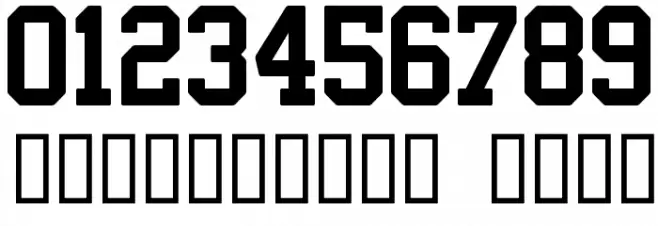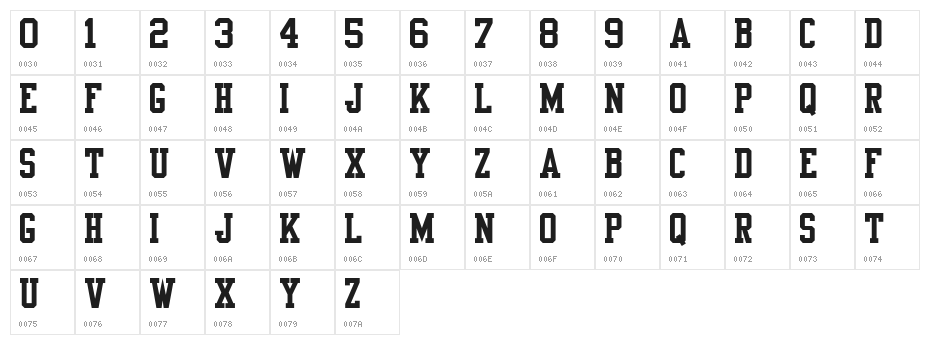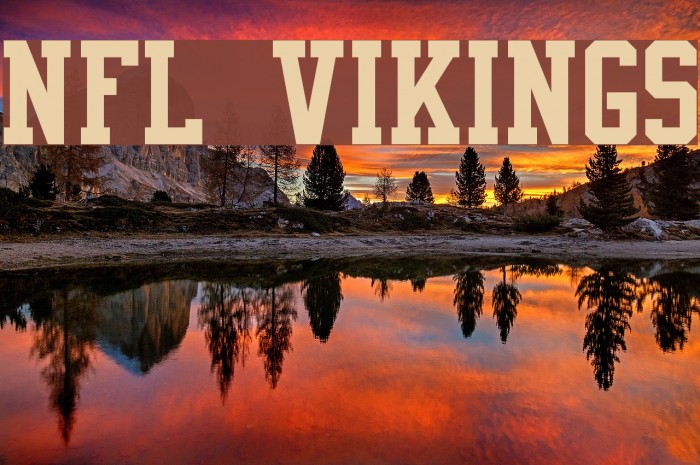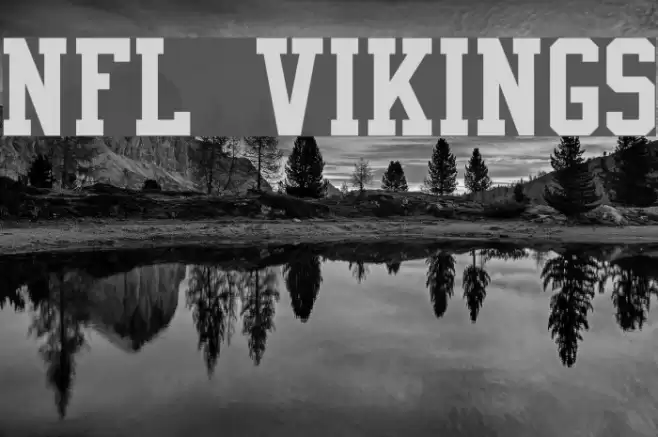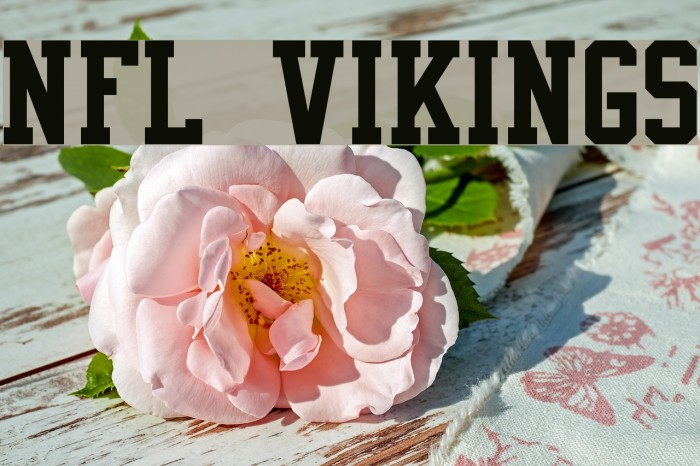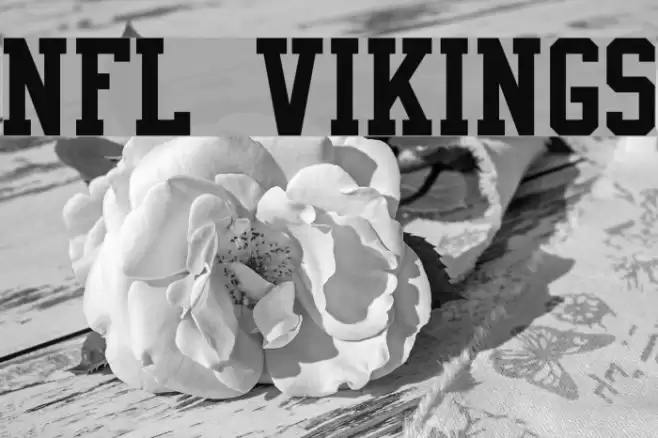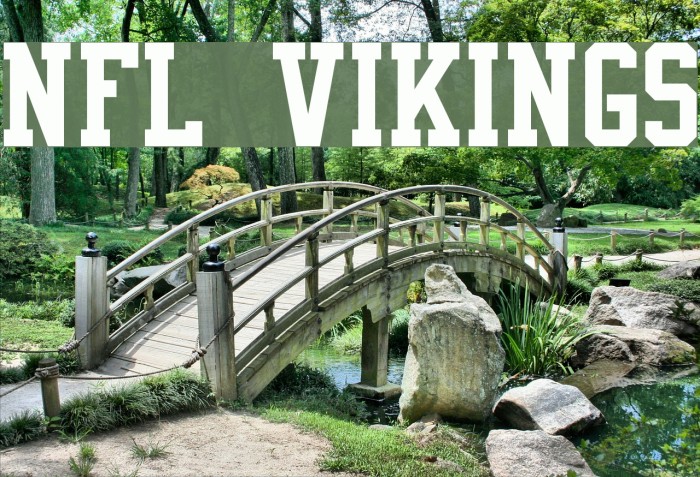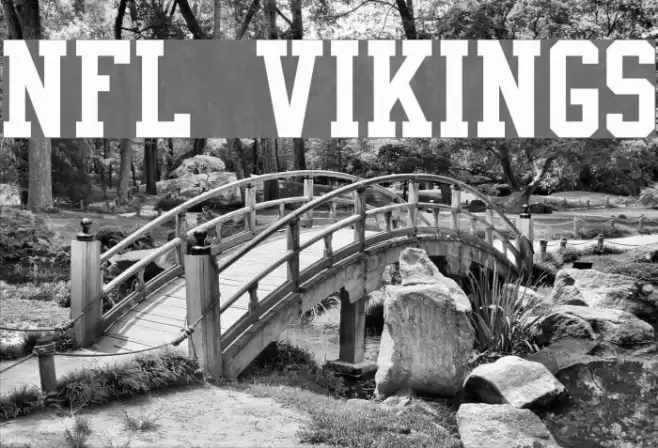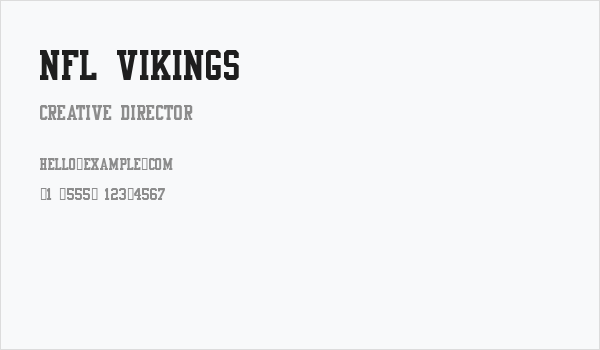
NFL Vikings Font
NFL Vikings Description
This font features bold, blocky characters with a strong presence, ideal for making a statement. The uppercase letters are designed with a uniform width, giving them a balanced and structured appearance. The numbers follow the same bold style, ensuring consistency across different uses. The font's geometric shapes and sharp edges convey a sense of strength and stability, making it suitable for sports-related themes or any project that requires a bold and impactful look.
| Proposed Projects | Ideal for sports branding, team logos, merchandise, posters, and headlines that need a strong visual impact. |